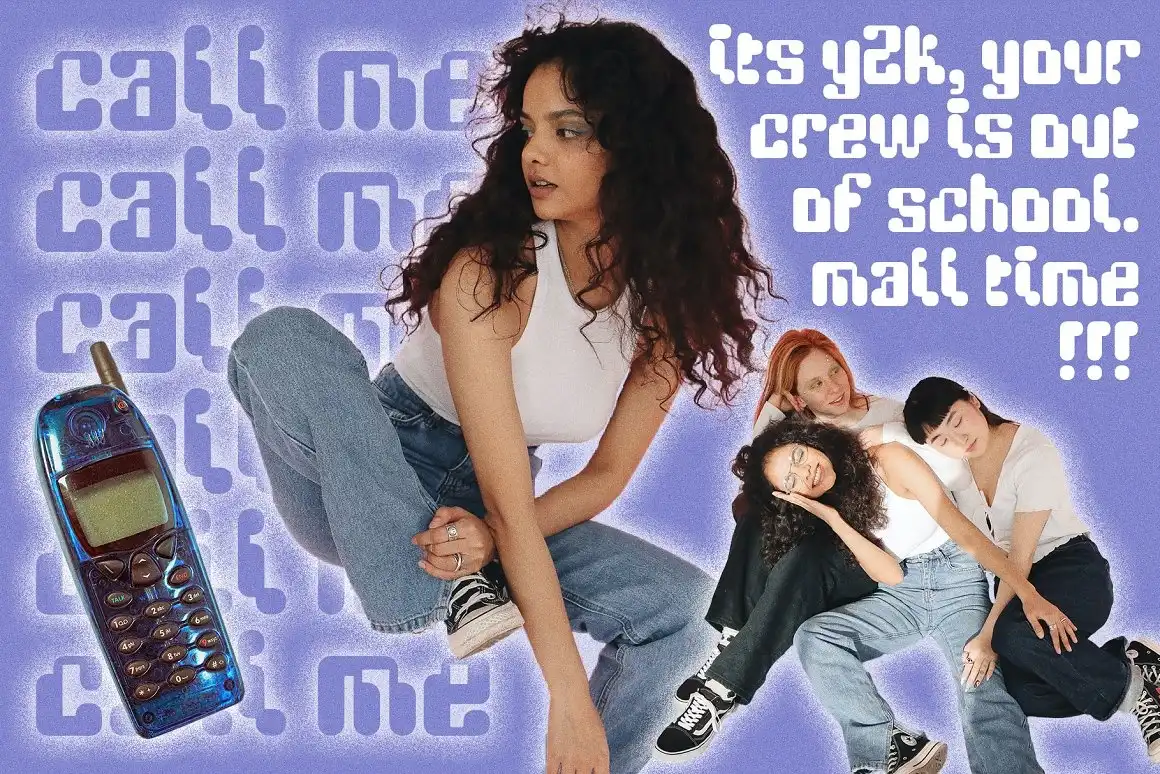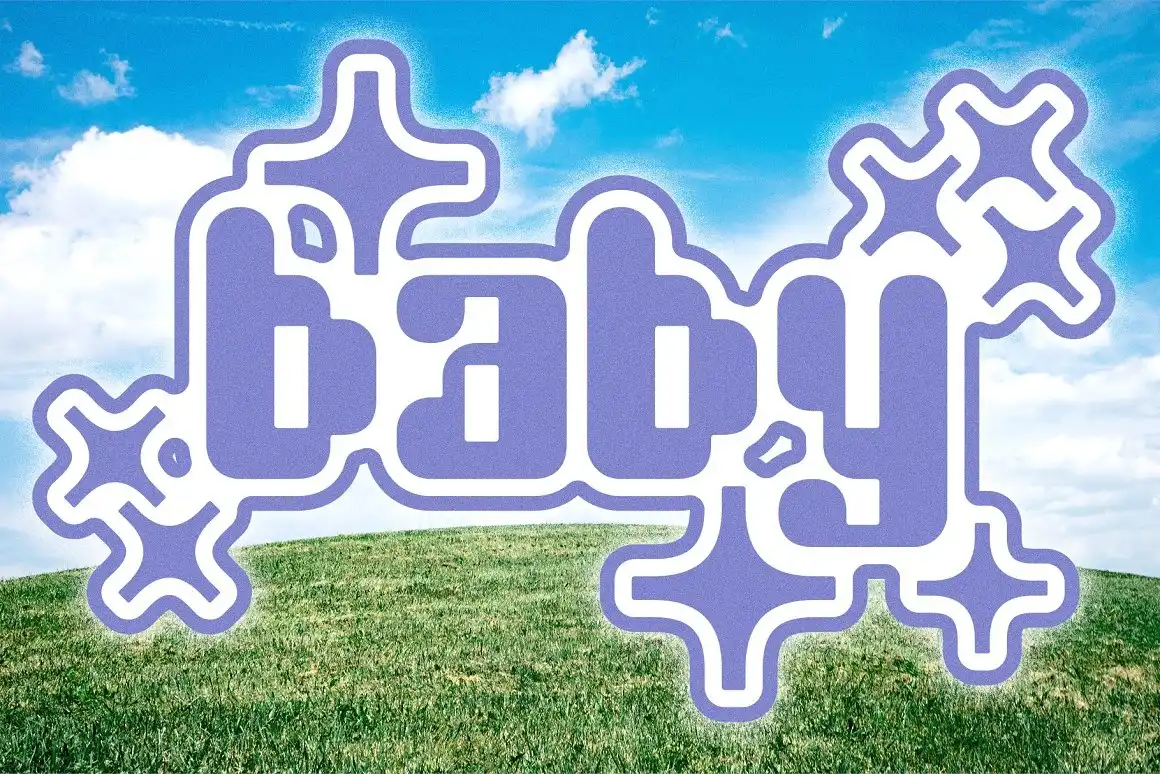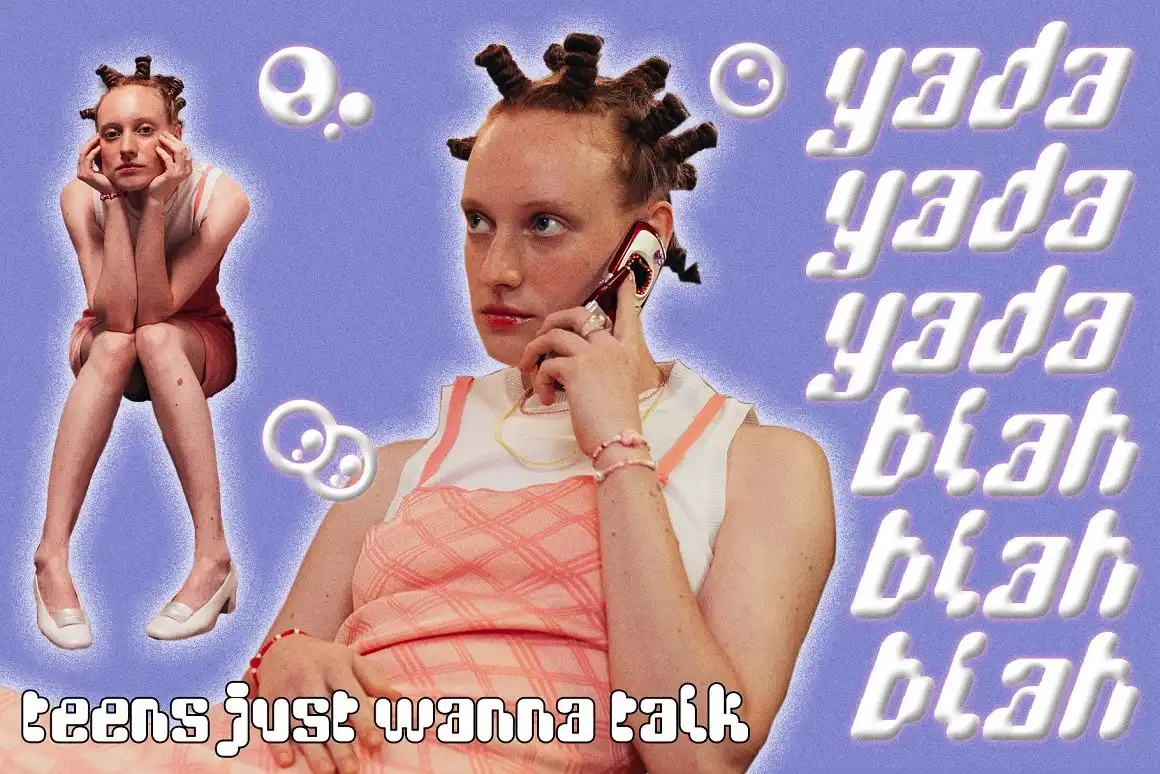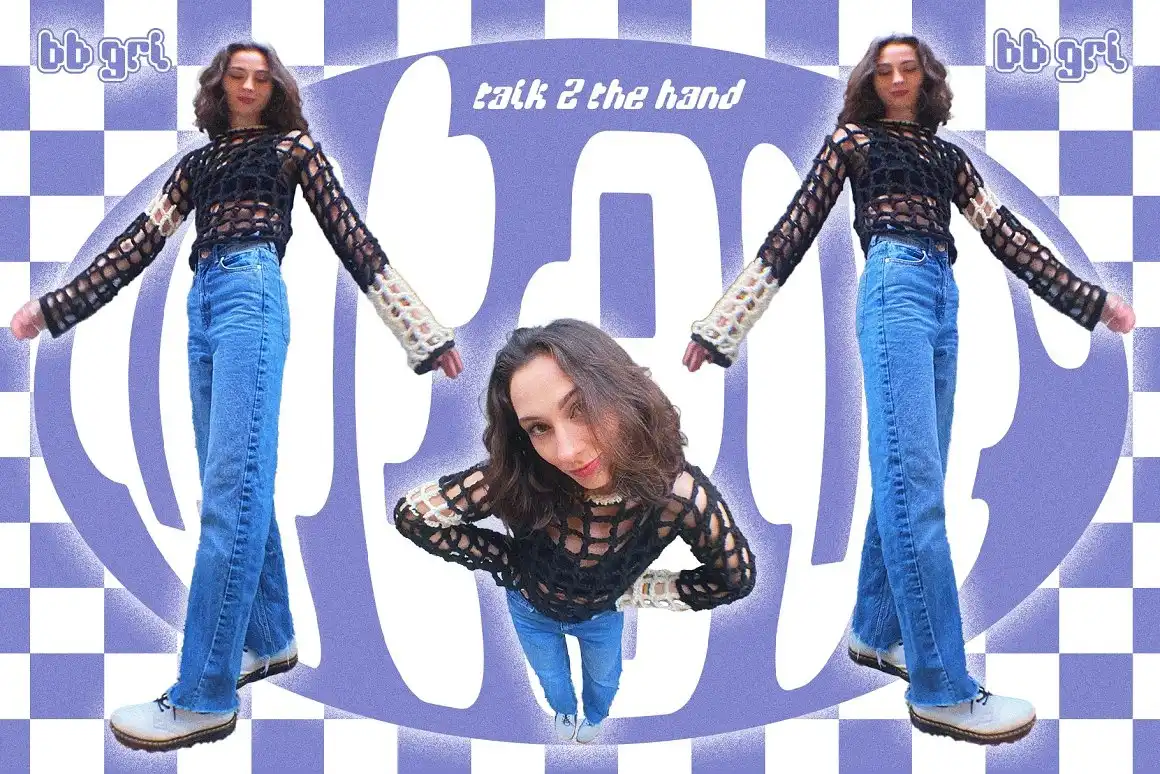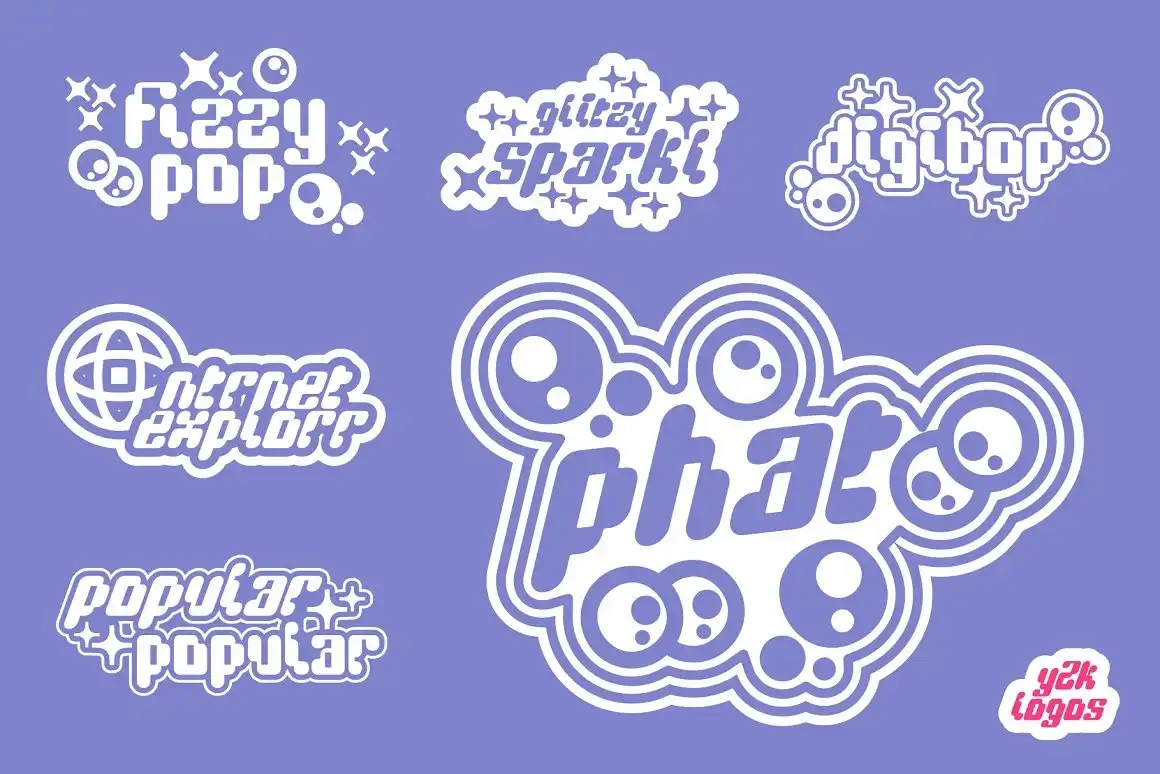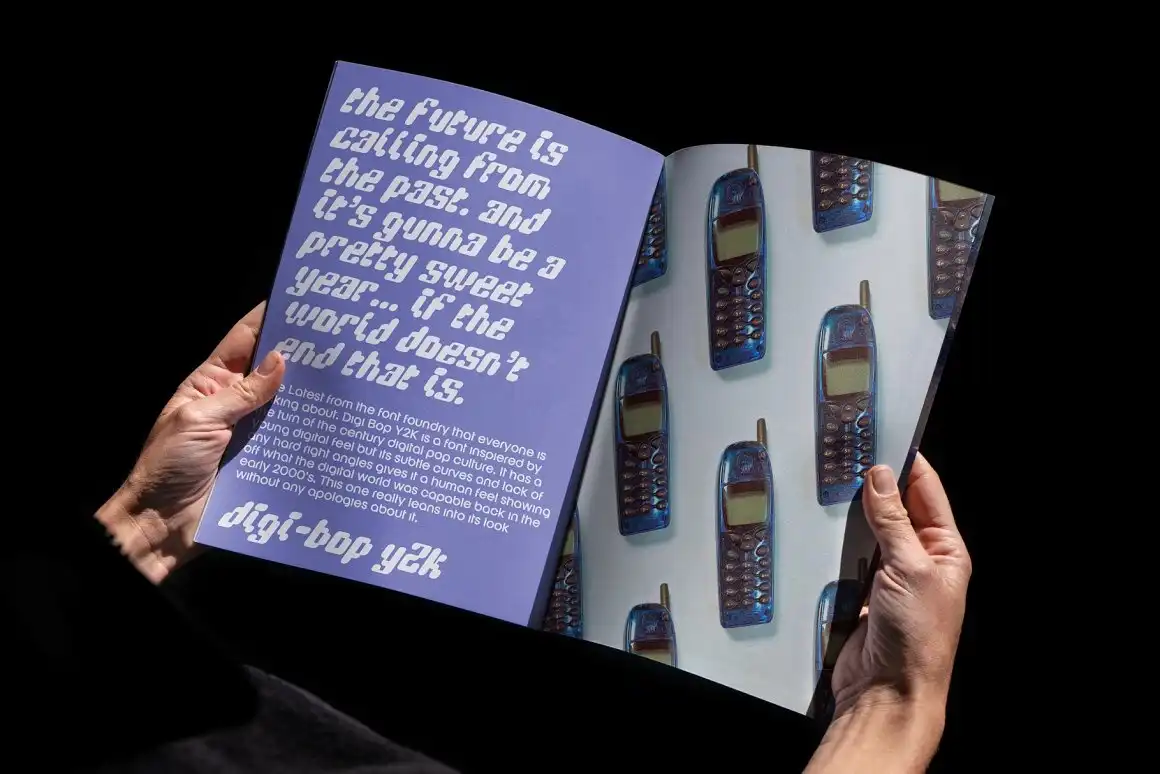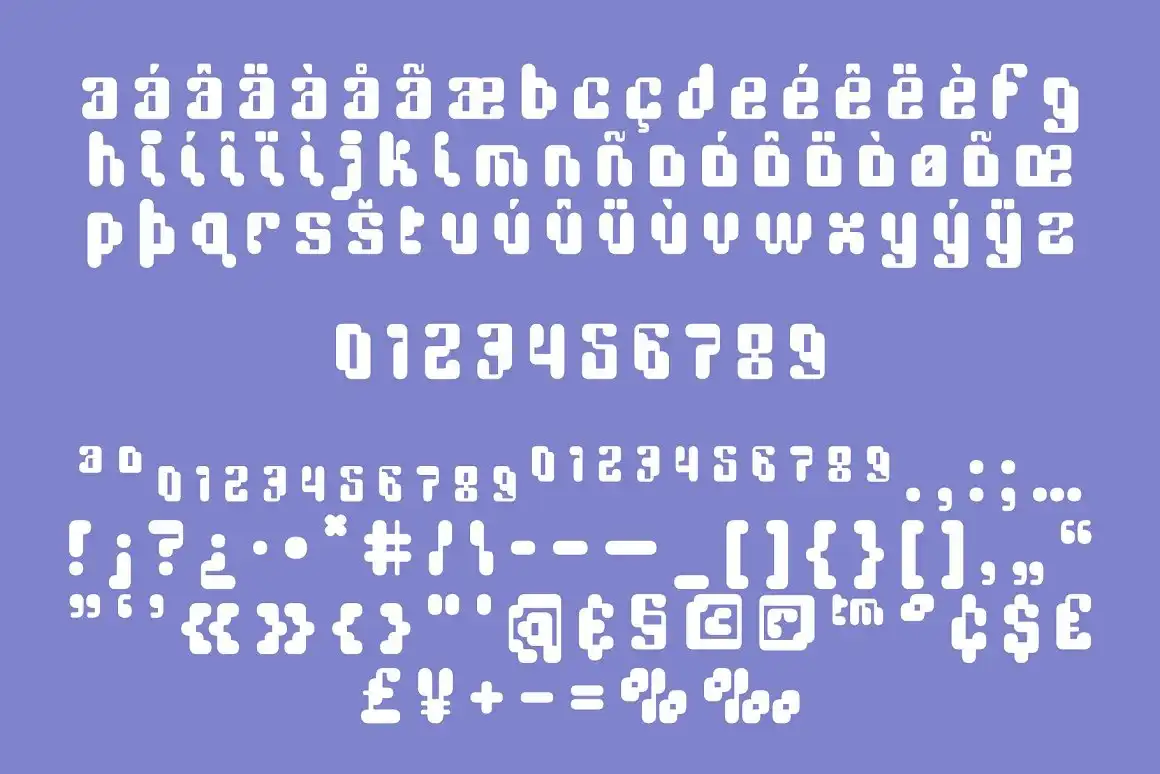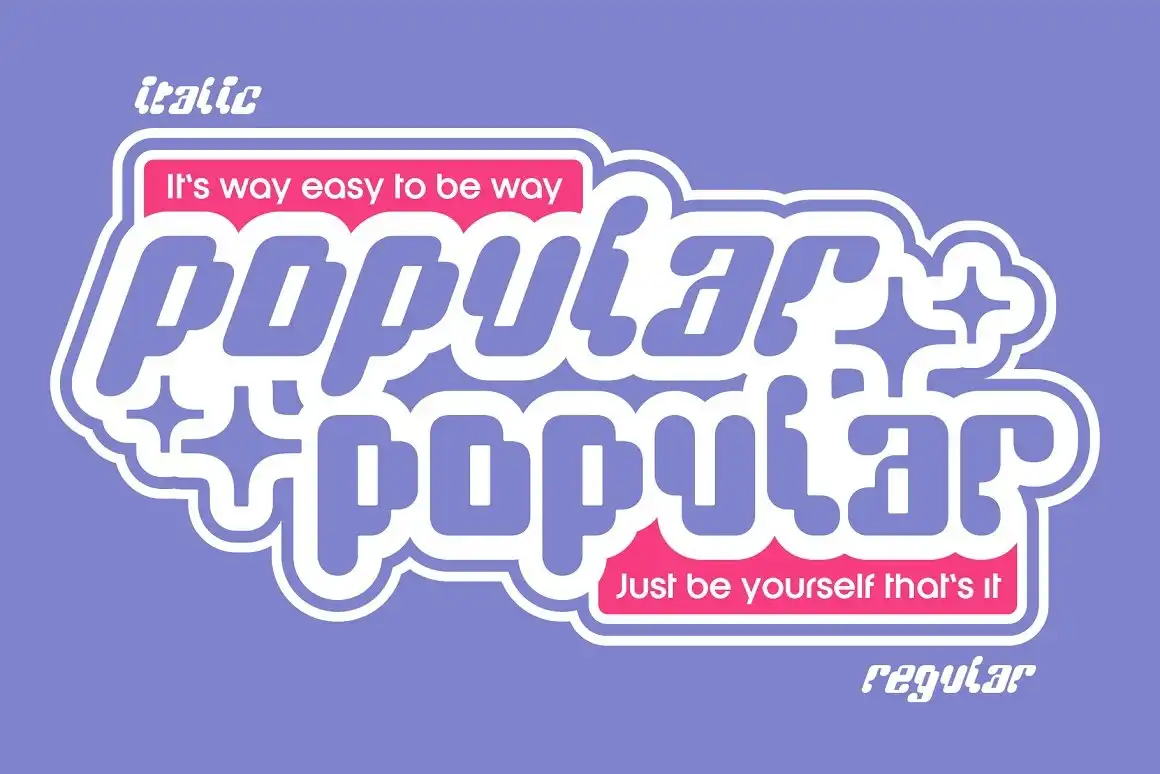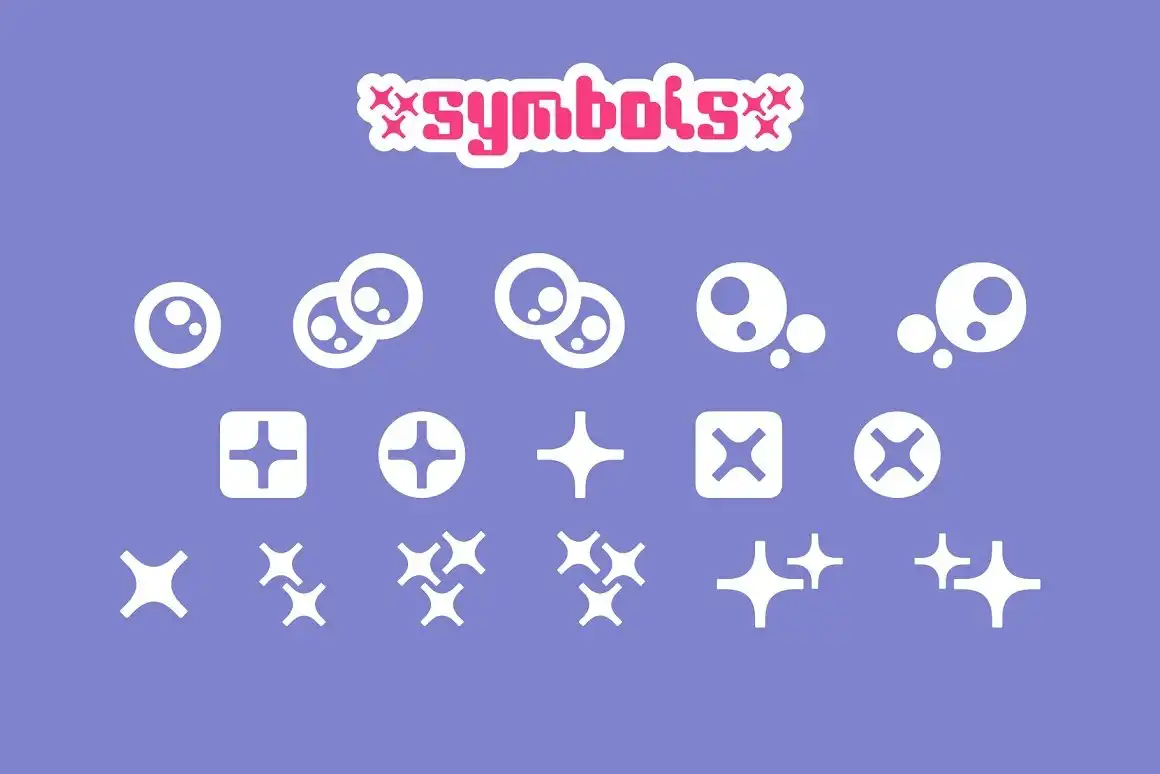
Welcome to the Y2K Font DigiBop Duo!
Looking for a vibrant and nostalgic touch for your designs? The DigiBop Y2K Font Duo is a delightful digital download that offers instant access to a playful blend of retro vibes! 🌟 This font duo captures the essence of the early 2000s, making it perfect for everything from branding to social media posts. 🎉
The DigiBop Y2K Font is a stunning modern take on the retro digital era. With its bold and playful design, this font is ideal for logos, posters, magazines, and more. Whether you’re creating catchy headlines or stylish Instagram content, this font will surely turn heads! 😍 It comes in regular and italic styles, giving you versatility for various design projects.
- Playful Design: Perfect for capturing the fun essence of the Y2K era, making your projects stand out.
- Two Styles: Regular and italic options for added flexibility in your design work.
- Nostalgic Appeal: Hits on the 90’s and early 2000’s nostalgia, connecting with audiences who love retro aesthetics.
- Versatile Use: Suitable for branding, social media, posters, and more!
- Unique Glyphs: Includes special star and bubble glyphs to add a creative touch to your designs.
- Lowercase letters
- Symbols
- Punctuation
- Numbers (3 sets of numbers)
- Unique star and bubble glyphs
This font duo is fantastic for graphic designers, branding experts, social media managers, and anyone looking to add a splash of Y2K nostalgia to their projects! 🎨✨